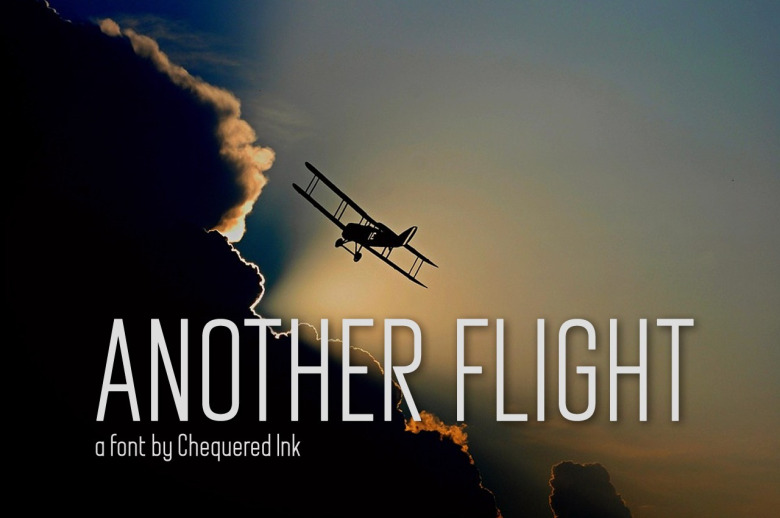
Another Flight Font
Another Flight is a high quality Sans serif font that is designed by Chequered Ink. Another Flight is a punchy font by Chequered Ink. It’s great for logos and posters.
Another Flight Sans Serif Font